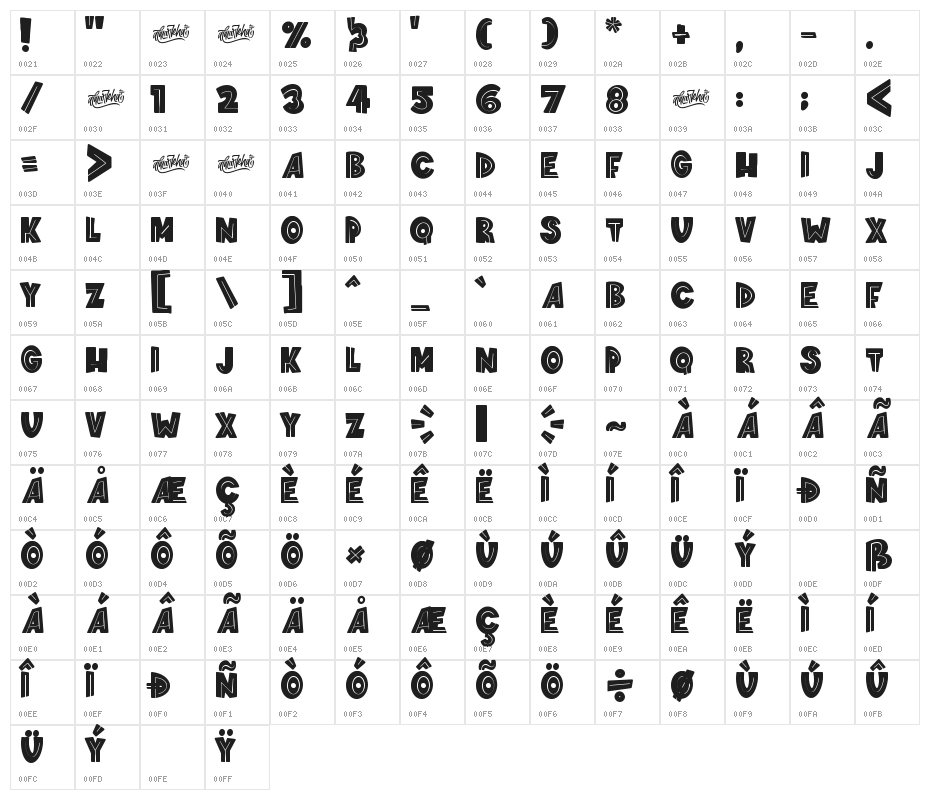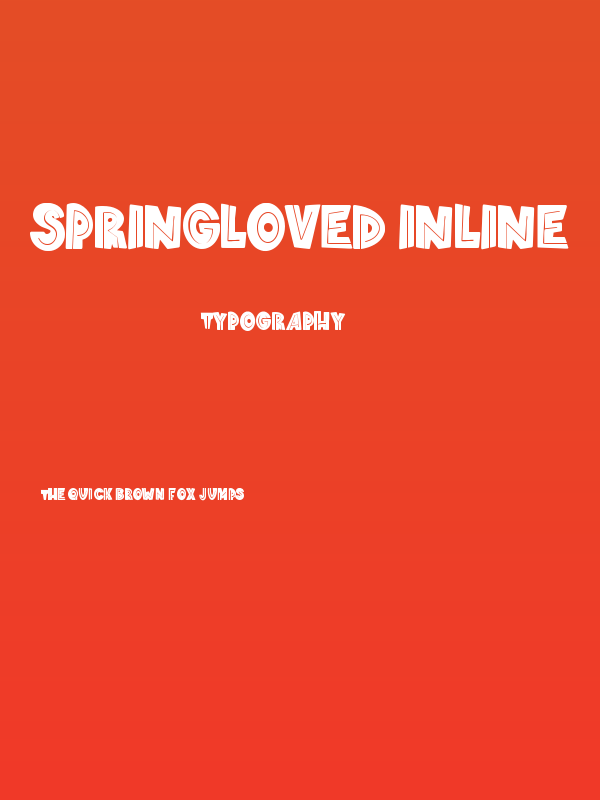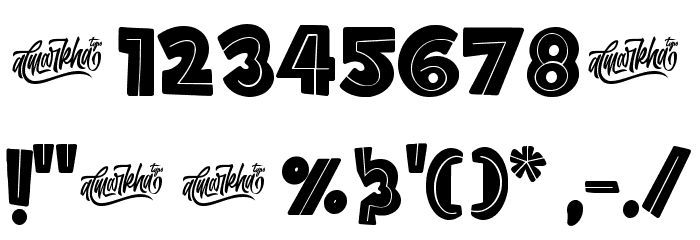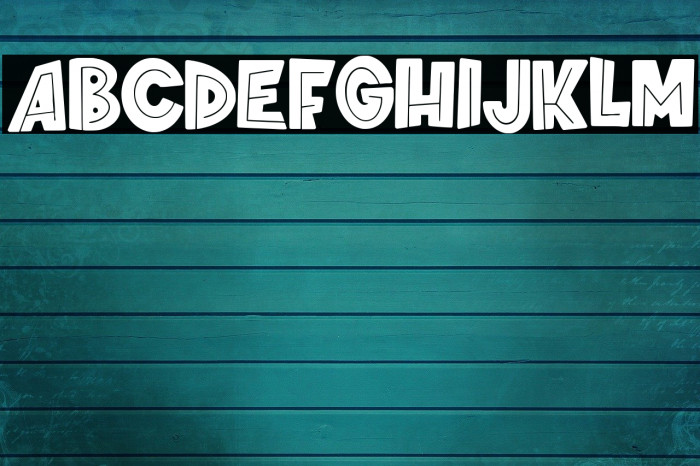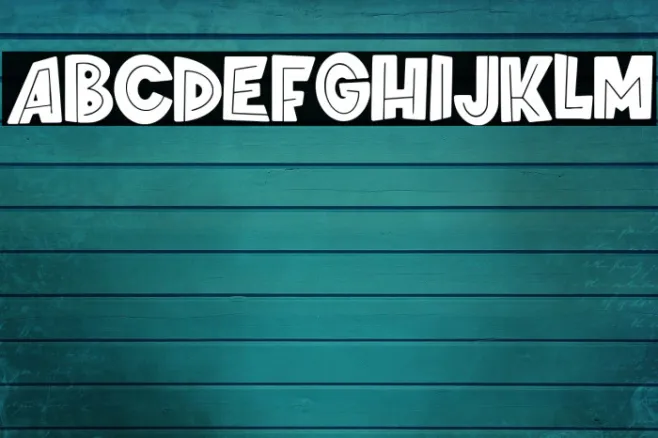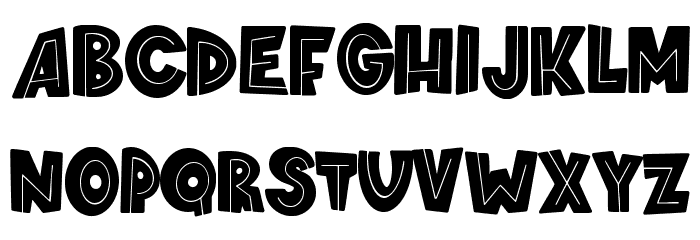
springloved inline Font
springloved inline Description
This font features bold, playful characters with a strong presence, making it ideal for eye-catching designs. The letters are thick and rounded, giving them a friendly and approachable feel. The uppercase and lowercase letters maintain a consistent style, with slight variations in width and height that add to the font's charm. The numbers and special characters are equally bold and well-defined, ensuring readability across various applications. The overall design is modern and fun, suitable for projects that require a lively and energetic typeface.
| Proposed Projects | Ideal for children's books, playful branding, posters, and social media graphics. |